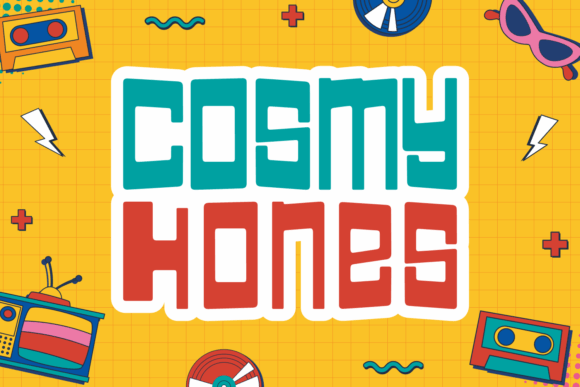
Unleash the beauty of your designs with Cosmy Hones Font, a dazzling display font that's brimming with charm and playfulness. Picture this: your creations adorned with its wide, eye-catching characters, radiating a vibrant energy that leaves your audience mesmerized. Dive into a world where typography meets art, where each letter dances across the page with a unique flair. With Cosmy Hones Font, your designs will sing, captivating hearts with its delightful charisma.
Cosmy Hones Font is more than just a font; it's an experience. Its quirky nature adds a touch of whimsy to your projects, making them burst with personality. Imagine the smiles it will bring to your audience's faces as they witness your designs come to life. Its wide, easy-to-read letters ensure maximum readability, making it perfect for a multitude of purposes. From eye-catching headlines to captivating social media posts, let Cosmy Hones Font be the star of the show.